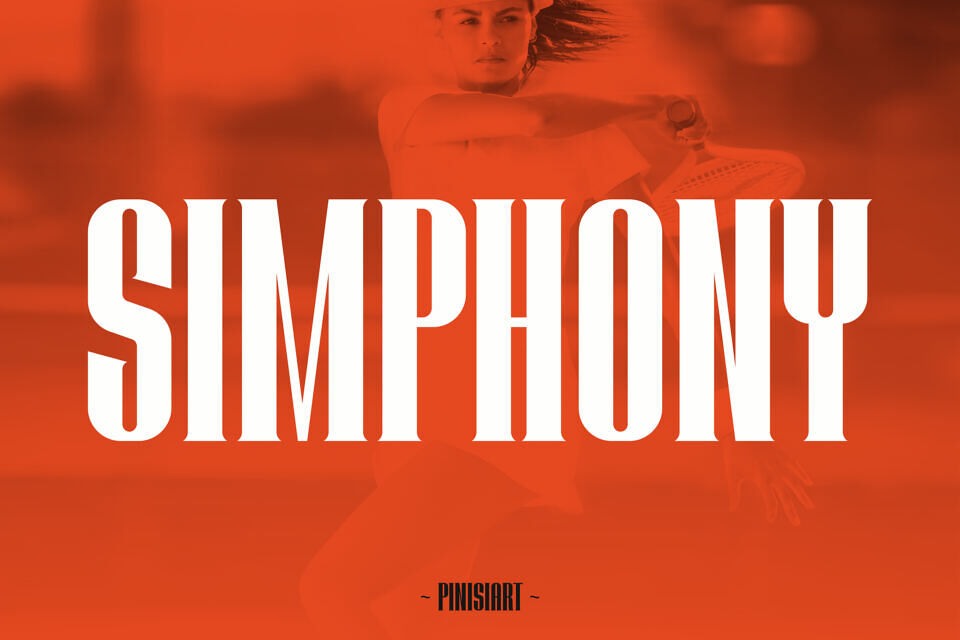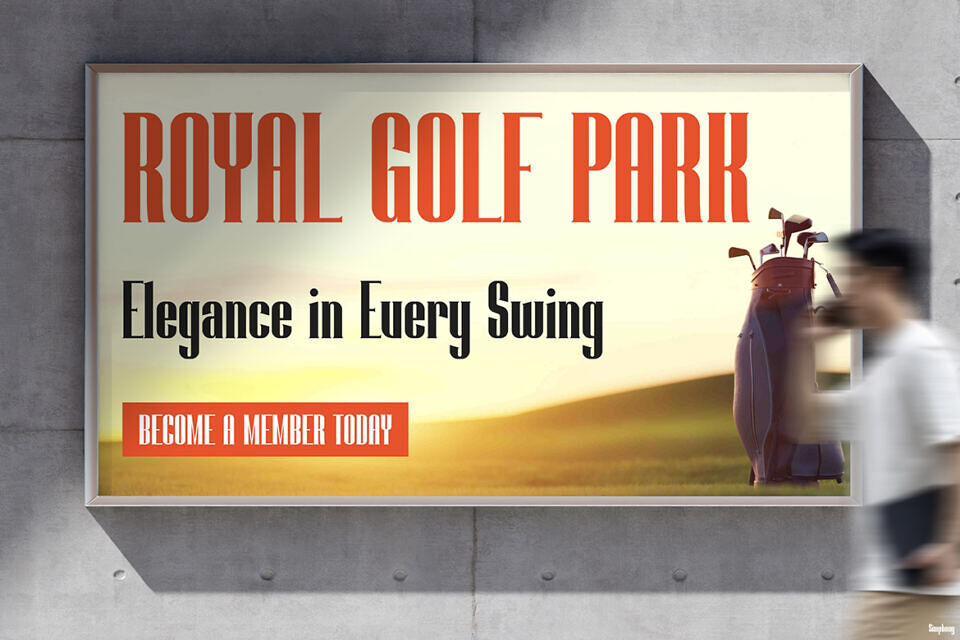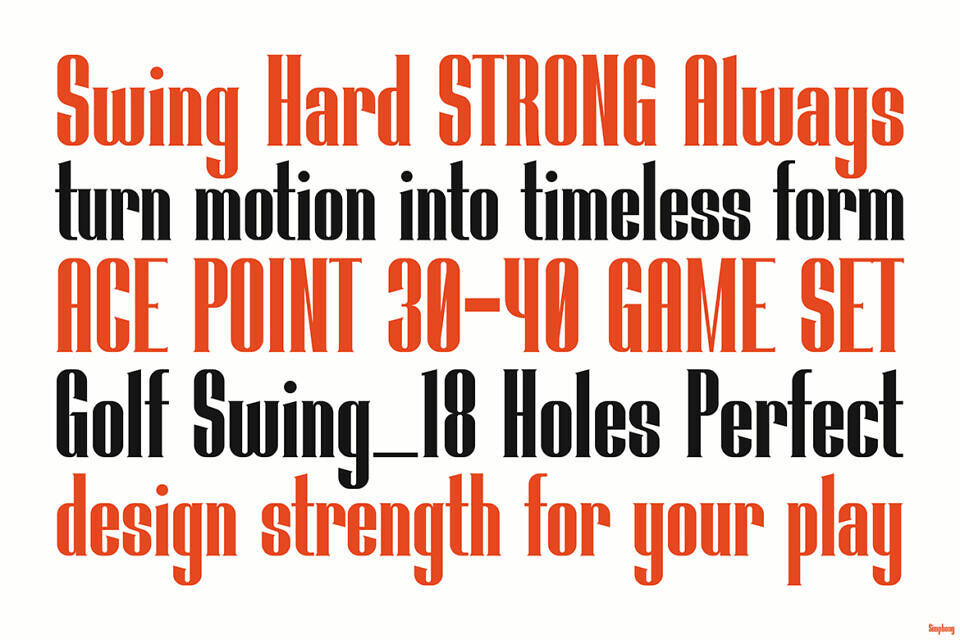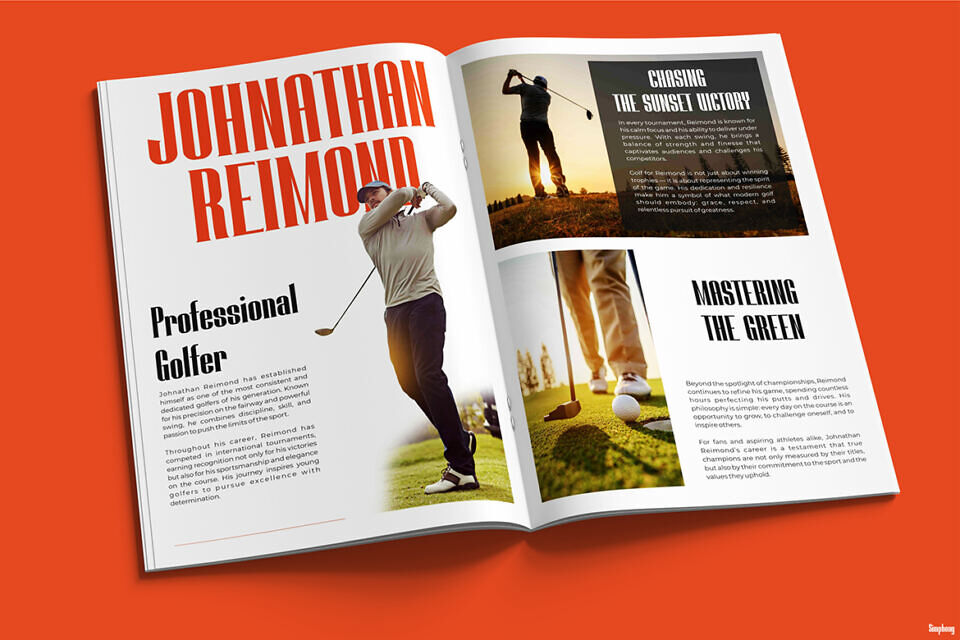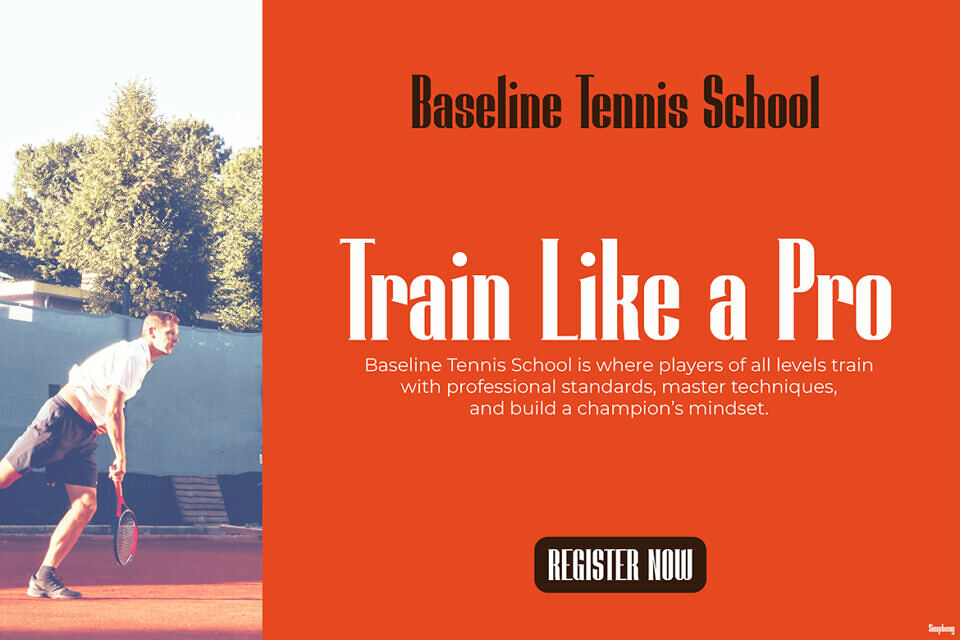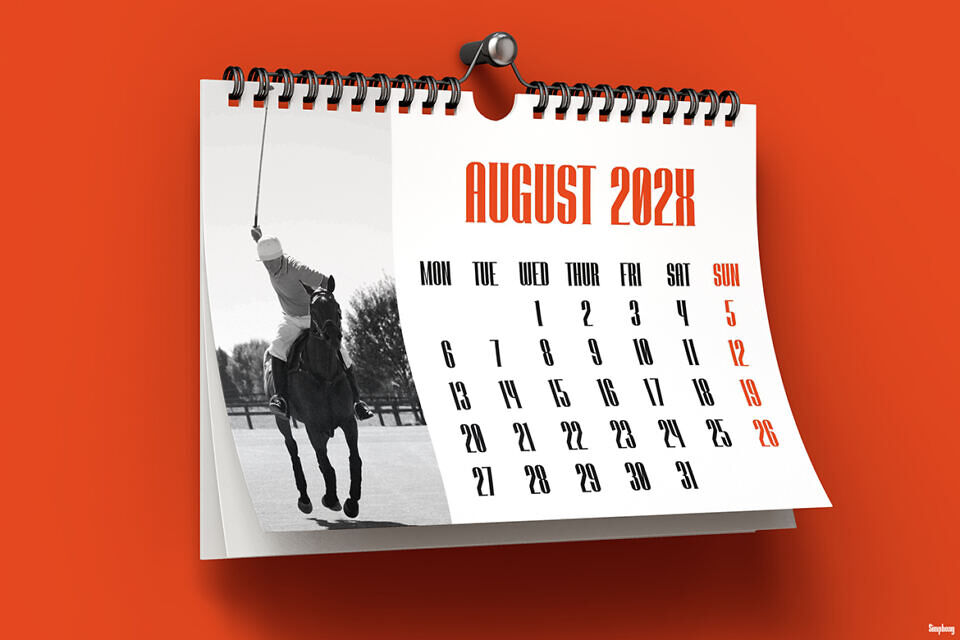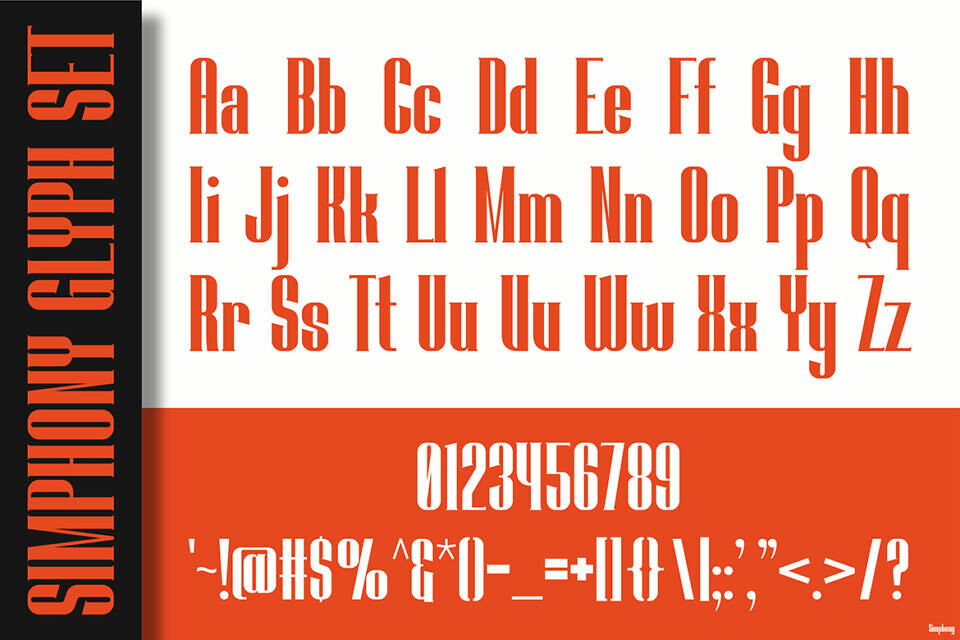
Font Simphony is a bold, geometric typeface balancing elegance and power. Its clean readability and striking visuals make it ideal for diverse projects – from social media posts and branding to print materials.
Suitable for various industries, including sports, luxury, and entrepreneurship, Simphony delivers impactful, modern designs with timeless appeal, ensuring your content stands out.